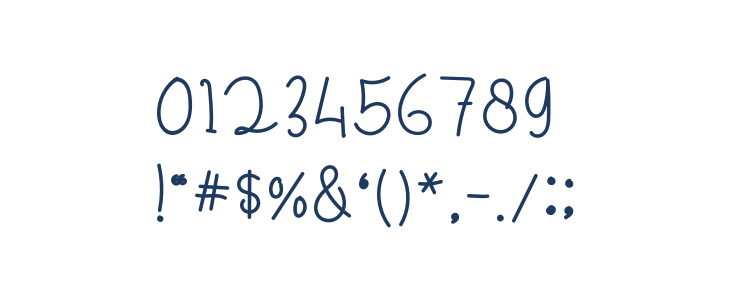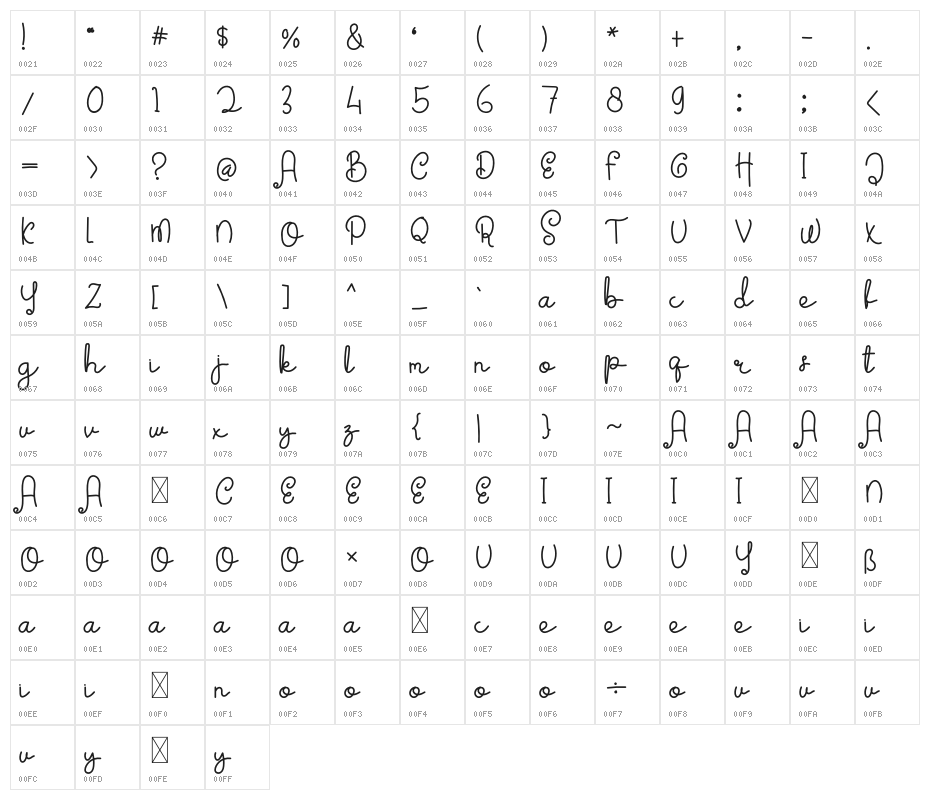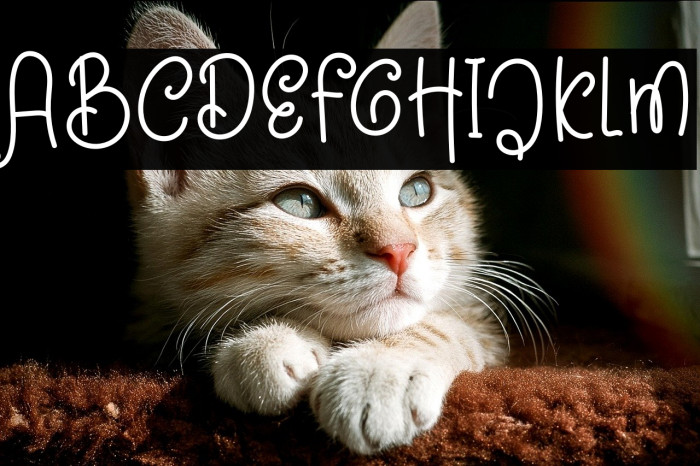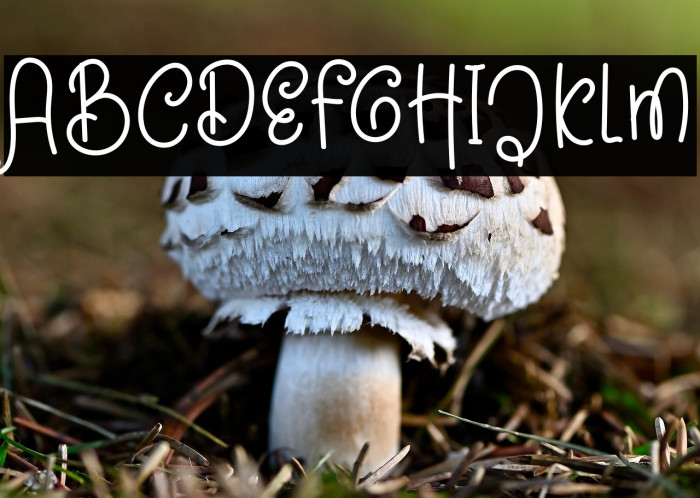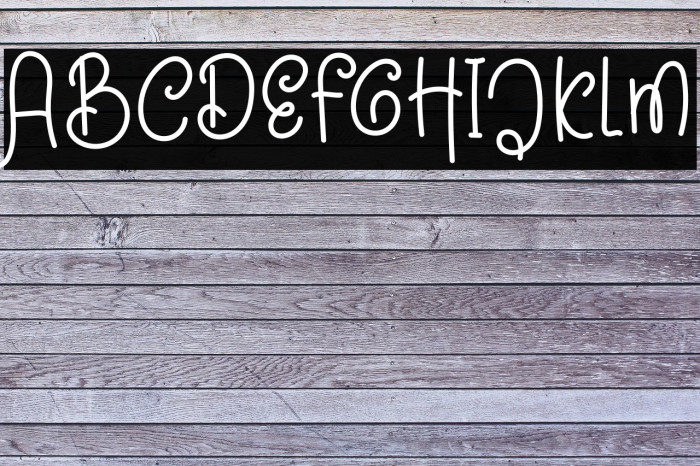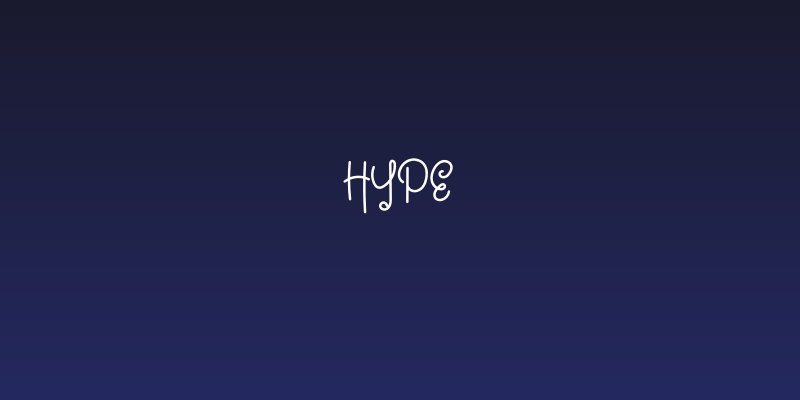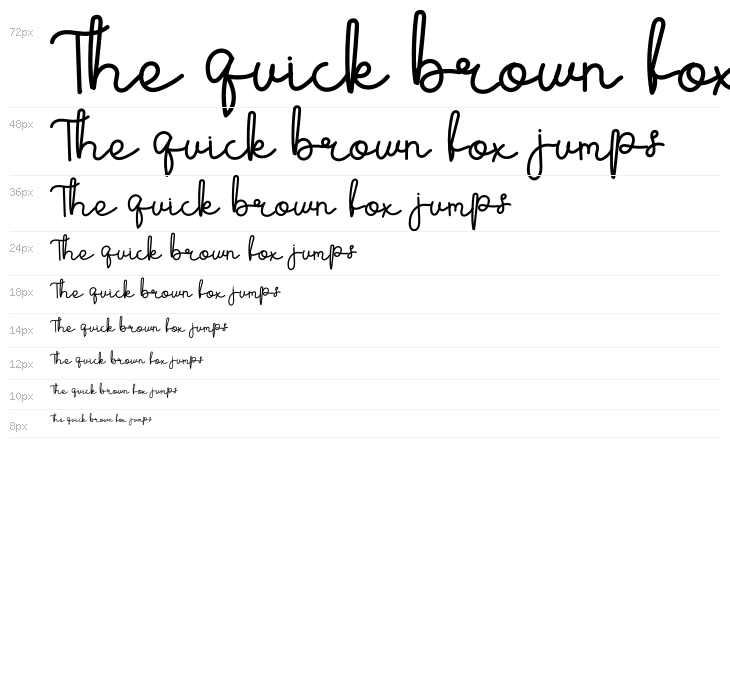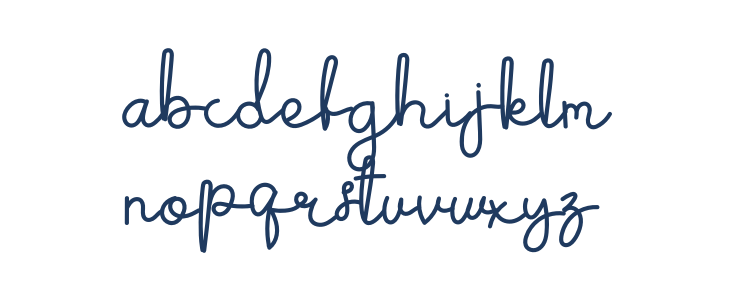
Hype Font
Hype Description
This font features a playful and whimsical handwritten style, characterized by its smooth, flowing curves and loops. The letters are interconnected, giving a sense of continuity and fluidity. The uppercase letters maintain a consistent height, while the lowercase letters exhibit a charming irregularity, adding to the font's casual and friendly appearance. The numerals are clear and easy to read, with a slight tilt that matches the overall style. Special characters are creatively integrated, maintaining the font's cohesive look. This font is perfect for projects that require a personal touch, such as invitations, greeting cards, or creative branding.
Overall StyleCasual, Playful
Use CaseHeadlines, Logos, Invitations
Proposed ProjectsIdeal for invitations, greeting cards, personal branding, and creative projects.